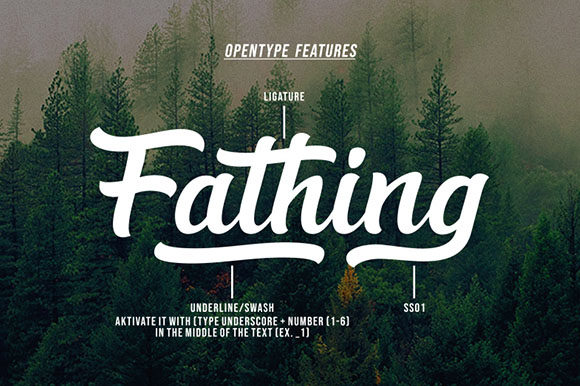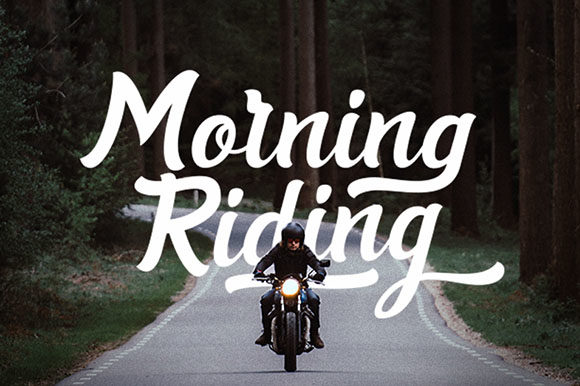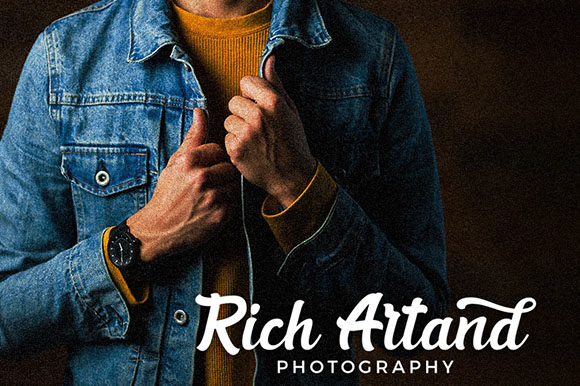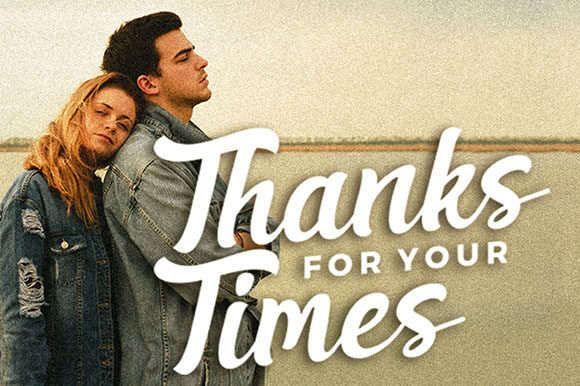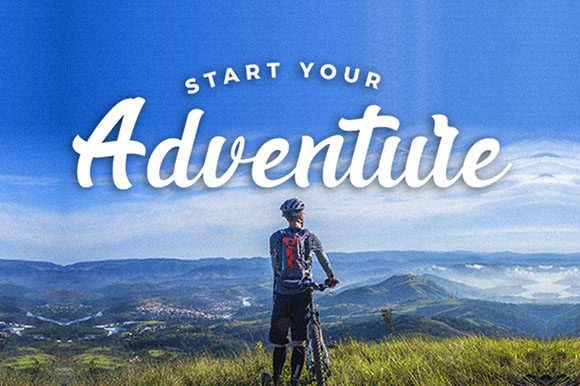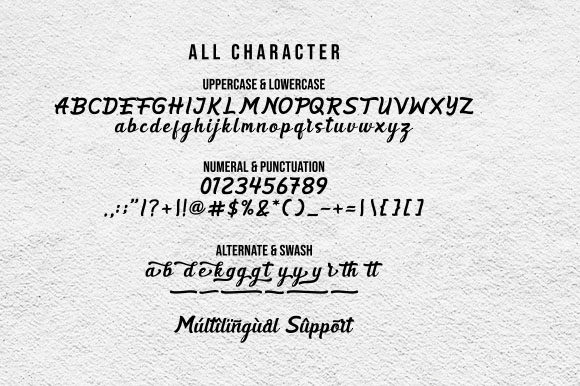
Fathing Font: Elevate Your Designs with Modern Script Elegance
In the world of typography, a good font can make all the difference in elevating your design from ordinary to extraordinary. For designers and crafters looking for a modern script font that exudes class and sophistication, Fathing Font is an excellent choice. This versatile font combines the elegance of traditional calligraphy with a fresh, contemporary feel, making it perfect for a wide range of creative projects.
The Characteristics of Fathing Font
Fathing Font is a modern script font that boasts a unique blend of classic calligraphic influences and modern flair. Its elegant strokes, fluid connections, and refined letterforms make it an ideal choice for designs that require a touch of sophistication. The font’s contemporary feel ensures that it remains fresh and relevant, allowing designers to create modern and stylish pieces that appeal to a wide audience.
One of the standout features of Fathing Font is its versatility. This font can be used for a variety of design projects, from letterheads and titles to stationery and more. Whether you’re creating a formal invitation, a business card, or a blog post, Fathing Font is the perfect choice. Its adaptability makes it an excellent addition to any designer’s toolkit, allowing you to experiment with different styles and applications.
Perfect for Crafty Ideas
Fathing Font is a great choice for crafty ideas that require a personal touch. Its elegant and refined appearance makes it perfect for:
- Letterheads: Add a touch of sophistication to your business correspondence with Fathing Font.
- Titles: Create stunning titles for your blog posts, articles, or books with this beautiful script font.
- Stationery: Design elegant stationery, including greeting cards, invitations, and thank-you cards, with Fathing Font.
- Branding: Use Fathing Font to create a cohesive brand identity that exudes elegance and sophistication.
Why Choose Fathing Font?
With so many fonts available, why choose Fathing Font? Here are just a few reasons:
- Unique blend of classic and modern: Fathing Font offers a unique combination of traditional calligraphic influences and modern flair.
- Highly versatile: This font can be used for a wide range of design projects, from formal to informal.
- Elegant and refined: Fathing Font’s elegant strokes and refined letterforms make it perfect for designs that require a touch of sophistication.
- Easy to read: Despite its elegant appearance, Fathing Font is highly legible, making it perfect for body text and headings.
Tips for Using Fathing Font
To get the most out of Fathing Font, here are a few tips:
- Pair with a sans-serif font: Combine Fathing Font with a sans-serif font for a stylish and modern look.
- Experiment with font sizes: Play around with different font sizes to create visual interest and hierarchy in your design.
- Use for headings and titles: Fathing Font is perfect for headings and titles, but can also be used for body text for a more elegant look.
Fathing Font is a beautiful modern script font that offers a unique blend of classic calligraphic influences and modern flair. Its versatility, elegance, and refined appearance make it perfect for a wide range of design projects, from letterheads and titles to stationery and more. Whether you’re a designer or crafter looking for a font that exudes sophistication and style, Fathing Font is an excellent choice.